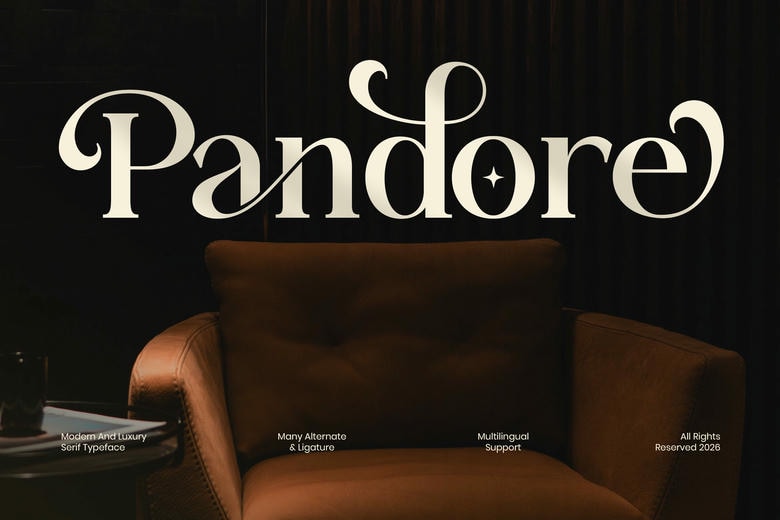
Pandore Font
Pandore is a luxury serif typeface that blends classic elegance with a modern touch. Its graceful letterforms and fine details give any design a polished, high-end look. With its stylish feel, Pandore helps you create eye-catching typography that still looks professional and refined.
If you are working on a luxury brand, designing elegant packaging, or putting together editorial layouts, Pandore brings a sense of sophistication and exclusivity to your work.